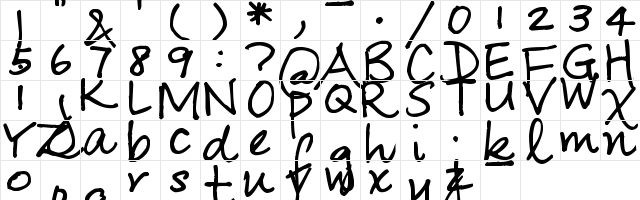
Pea Shirley Regular
Design Context for Pea Shirley Typeface
Pea Shirley is a composed and adaptable typeface that performs quietly and consistently across a wide range of design contexts.